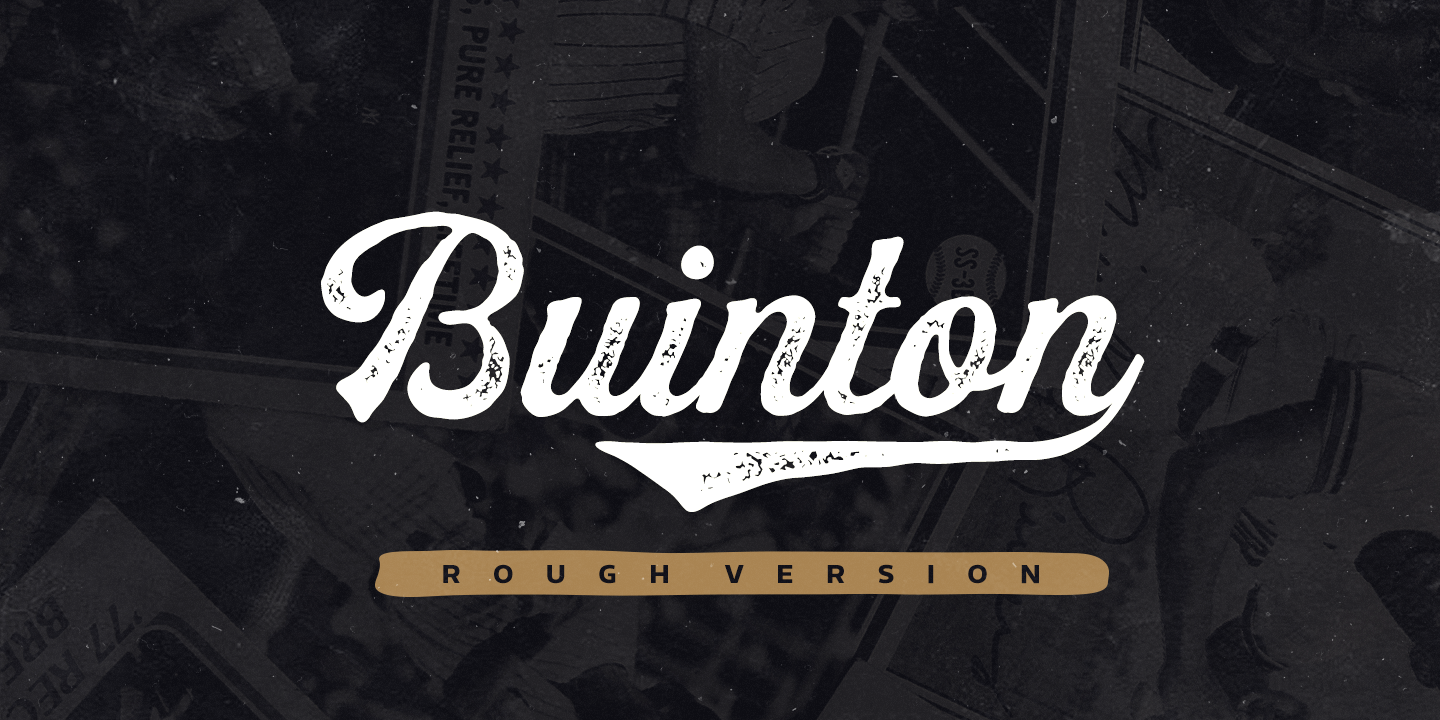
Buinton Rough Font is perfect for rugged outdoor adventure branding, construction company communications, weathered industrial facility signage, hardcore fitness gym materials, authentic craft brewery promotions, vintage manufacturing heritage exhibits, rough-terrain vehicle marketing, heavy-duty equipment documentation, blue-collar work culture graphics, and genuine working-class lifestyle branding campaigns.
What makes Buinton Rough Font so exciting is its extraordinary ability to capture the honest strength and work-hardened authenticity of industrial craftsmanship through ruggedly textured letterforms that seem forged in the fires of heavy manufacturing and weathered by decades of honest labor performed by skilled workers who understand that true quality emerges from the patient application of proven techniques rather than shortcuts or superficial appearances. This font embodies the essence of industrial integrity and working-class pride, featuring substantially weathered characters that appear shaped by the same forces that create reliable machinery and durable infrastructure built to withstand the test of time and demanding working conditions. The authentically roughened letter shapes create an atmosphere of industrial reliability and blue-collar authenticity, making every word feel like it carries the weight of honest work and the promise of discovering products and services built by people who take pride in their craftsmanship and stand behind their work with personal integrity.
The Buinton Rough Font family includes Light, Regular, Medium, Bold, and Extra Weathered variations, along with industrial symbols and work-tested decorative elements. Each style maintains the font's distinctive rough character while offering versatility for different industrial applications, from subtle technical documentation to commanding work site headlines that celebrate the achievements and values of industrial workers and manufacturing excellence.
This authentic typeface brings genuine industrial work culture aesthetics to contemporary design projects. The Buinton Rough Font Free Download offers designers an invaluable resource for creating memorable brand identities that communicate work authenticity, industrial reliability, and blue-collar integrity. Whether you're developing industrial company branding, designing manufacturing materials, or creating working-class lifestyle communications, this font delivers unmatched industrial credibility and authentic appeal.
The expertly weathered letterforms in Buinton Rough Font feature natural wear patterns and work-tested proportions that mirror the honest aging of well-maintained industrial equipment and the authentic character that develops in workers who have earned their expertise through years of hands-on experience and commitment to quality craftsmanship. Each character has been designed to maintain perfect readability while expressing the industrial wisdom and work-tested reliability that separate skilled craftsmen from inexperienced laborers. The font's distinctive personality makes it ideal for applications requiring genuine industrial authority and working-class credibility.
Industrial and manufacturing professionals appreciate how Buinton Rough Font effortlessly communicates work authenticity, industrial excellence, and blue-collar integrity while appealing to customers who value honest craftsmanship and understand that the best products come from companies that employ skilled workers who take personal pride in their work and maintain the highest standards of quality and safety. The comprehensive character set includes industrial symbols, work decorations, manufacturing elements, and extensive international language support, ensuring global compatibility while preserving its distinctive Buinton identity. This makes it an invaluable resource for manufacturing companies, construction firms, industrial service providers, and any organization seeking typography that embodies the fundamental working-class values of honest labor, skilled craftsmanship, and the kind of industrial integrity that builds products designed to perform reliably under the most demanding conditions while supporting communities where working families can earn good wages through the application of skills passed down through generations of craftsmen who understand that true job satisfaction comes not from easy work but from the pride of building things that last and solving problems that matter through the patient application of knowledge, experience, and the understanding that quality work requires both technical skill and personal integrity in every aspect of production and service.